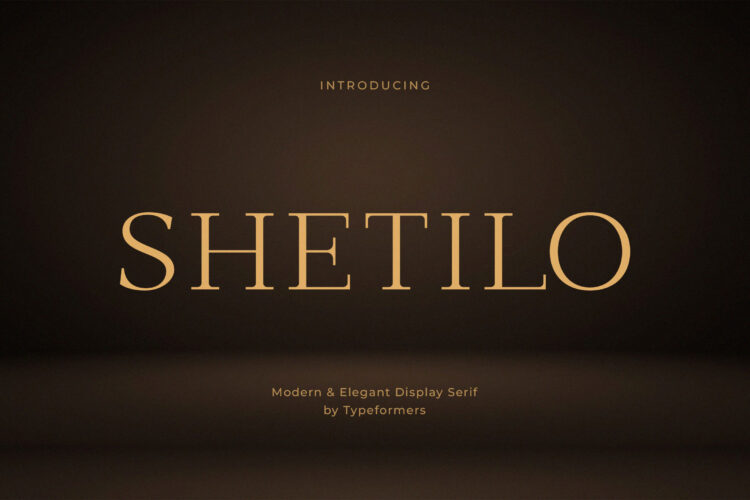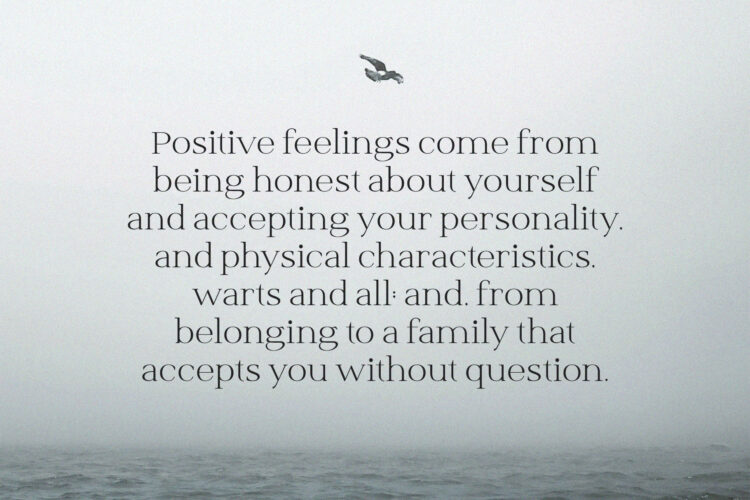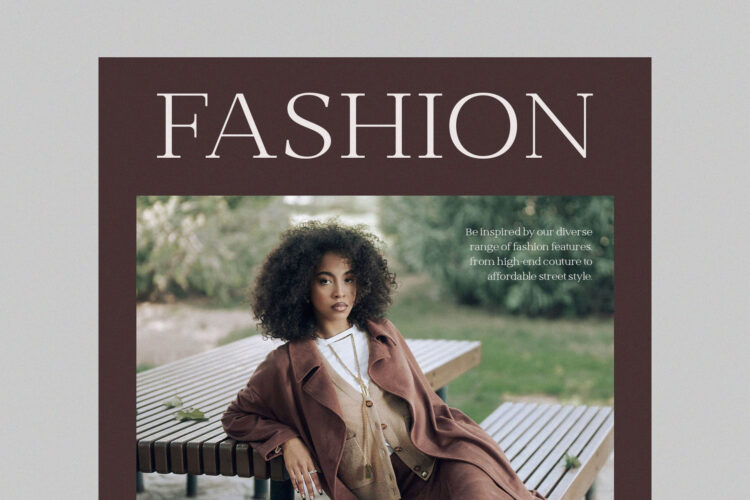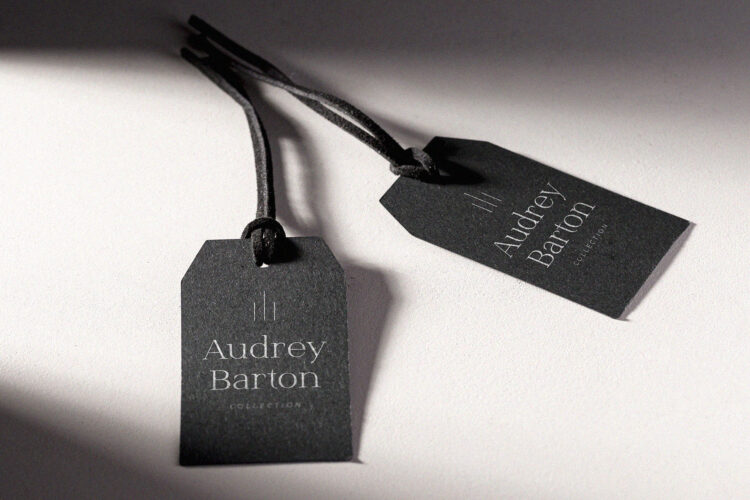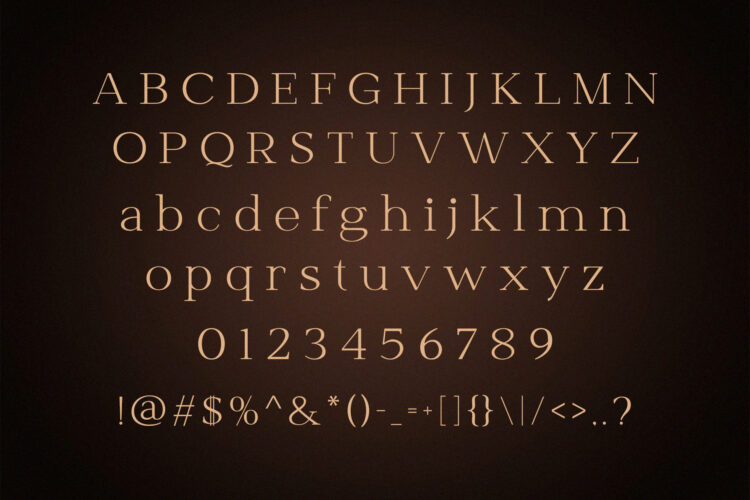
Introducing Shetilo – Modern Elegant Serif.
Shetilo is a modern and simple font, best used as a display for headings, logos, branding, magazines, product packaging and invitations.